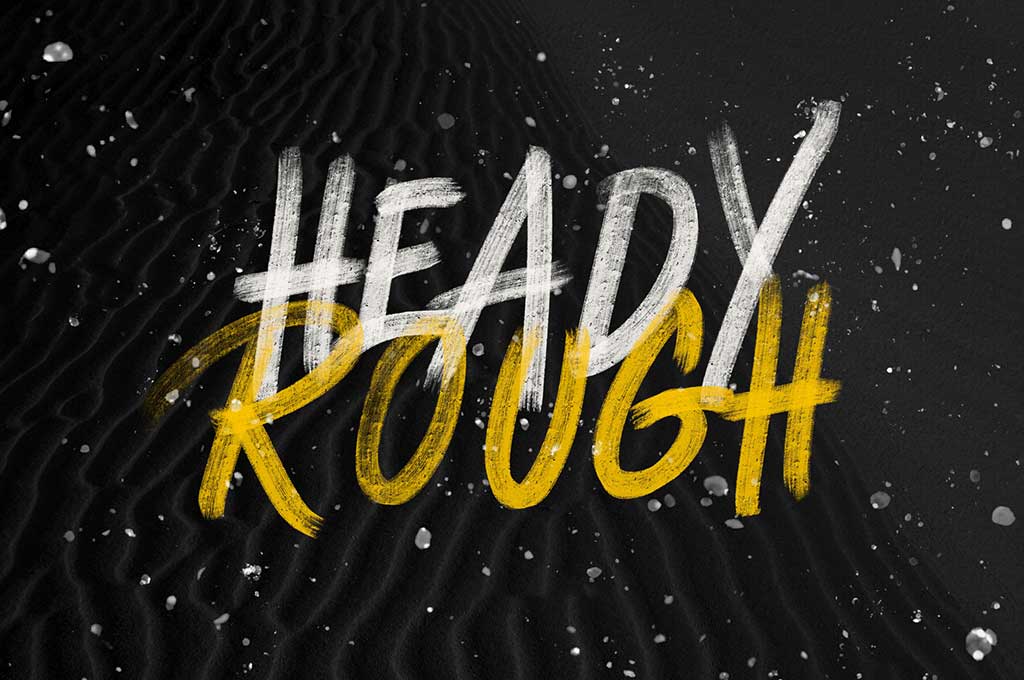
Review Of Best Grunge Fonts References
Review Of Best Grunge Fonts References. A range of vintage letterpress. The list is meant to give you a head start into picking the grungy but cool looking font for your design.
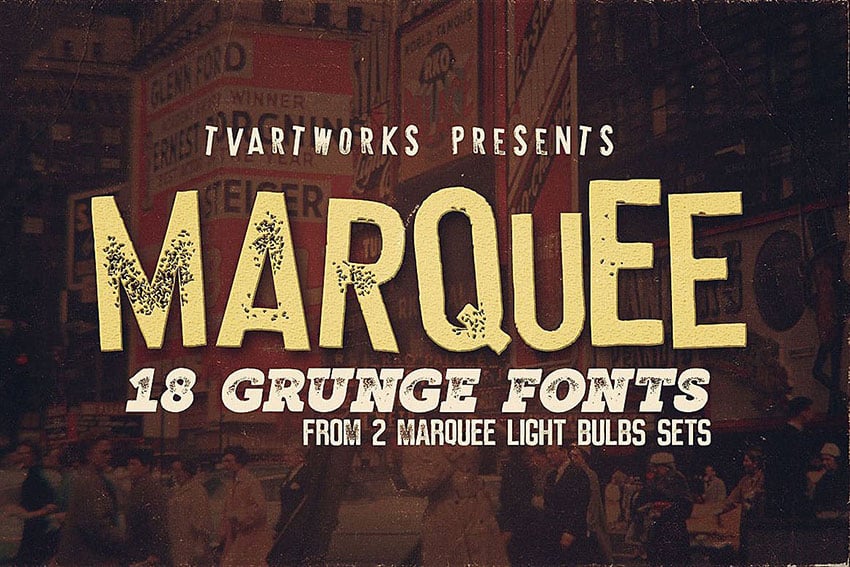
Web 30 Free Grunge Fonts To Enhance Your Web Design, Logos, Branding & Graphic Designs 1.
Web kronos grunge font style has a calligraphy style. Web explore 52,448 stunning grunge fonts to download and find the perfect match that fits your next web and print design projects of all sizes. This is a font for all projects that need to combine elegance with natural rustic vibe.
Click to find the best 105 free fonts in the bold grunge style. Web the best free grunge fonts soul mission. Web download the top 20 free grunge fonts.
The List Is Meant To Give You A Head Start Into Picking The Grungy But Cool Looking Font For Your Design.
Texas Grunge Demo Font 2.
The structure, which features messy impacts, adds a fascinating. Create logos, flyers, posters, invitations, hero. Web top 10 best grunge fonts for overall best quality, licensing & download options marquee light bulbs ( editors choice) triump rough font family ( editors.
Web This Is One Of 166 Grunge Fonts Designed By Douglas Vitkausk, Whose Work Has Amassed Over 15 Million Downloads.